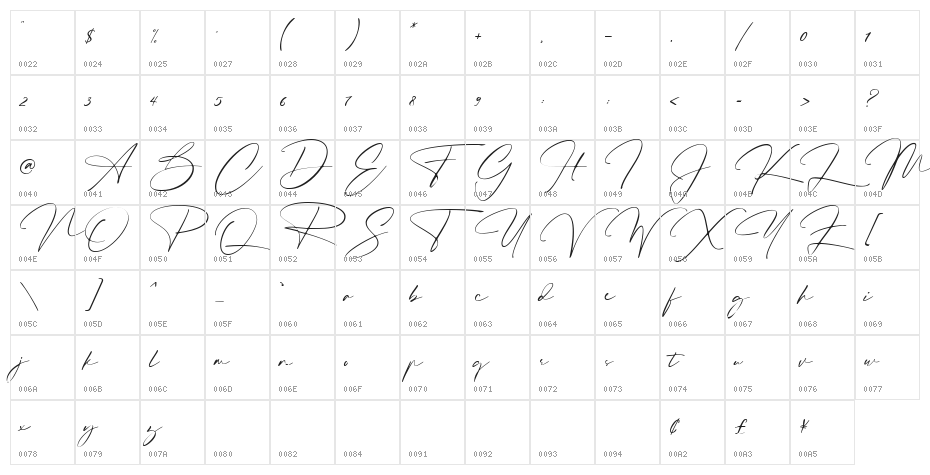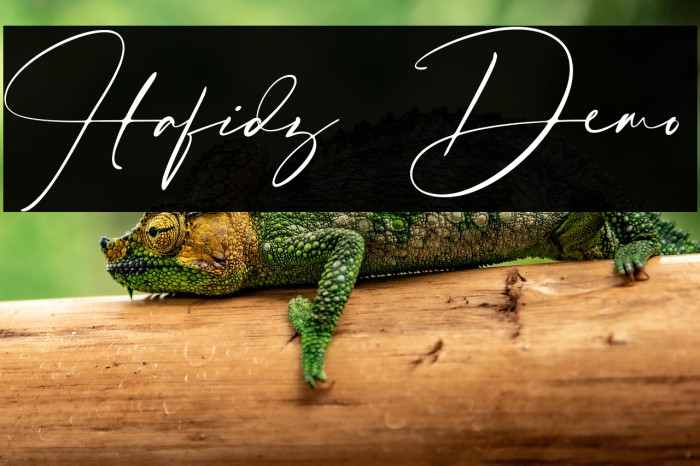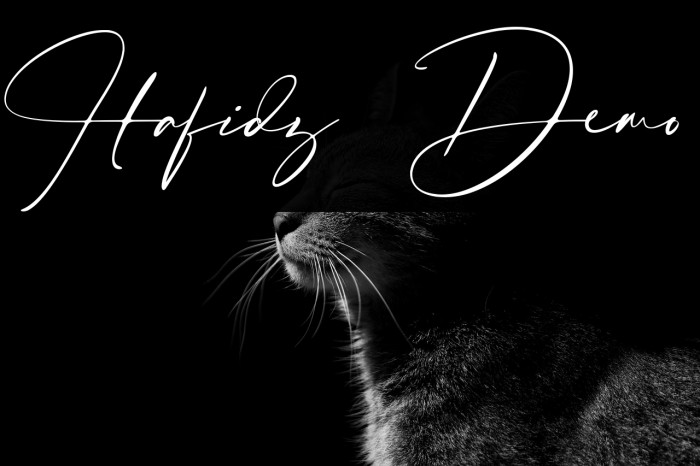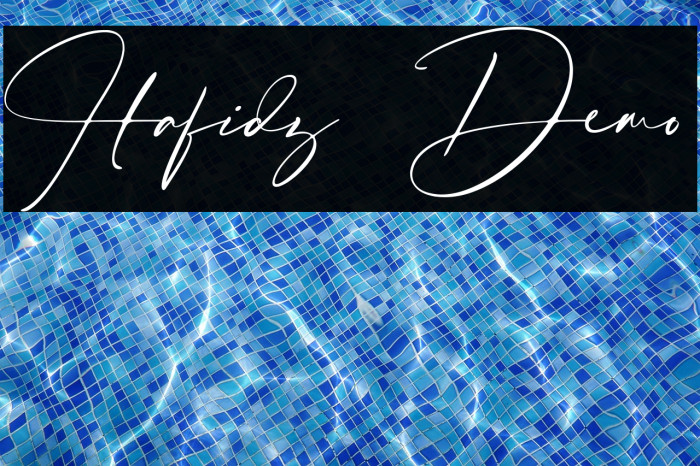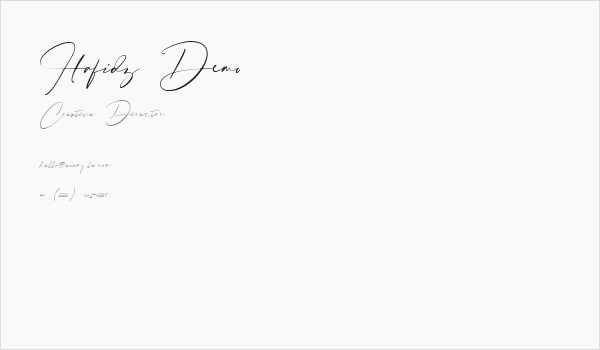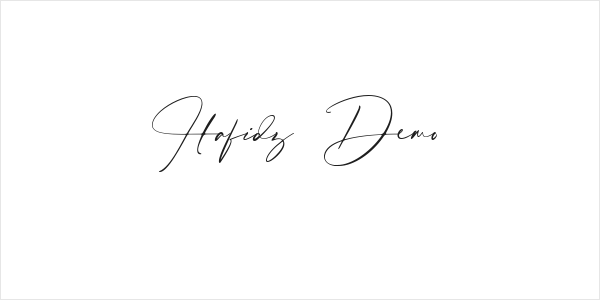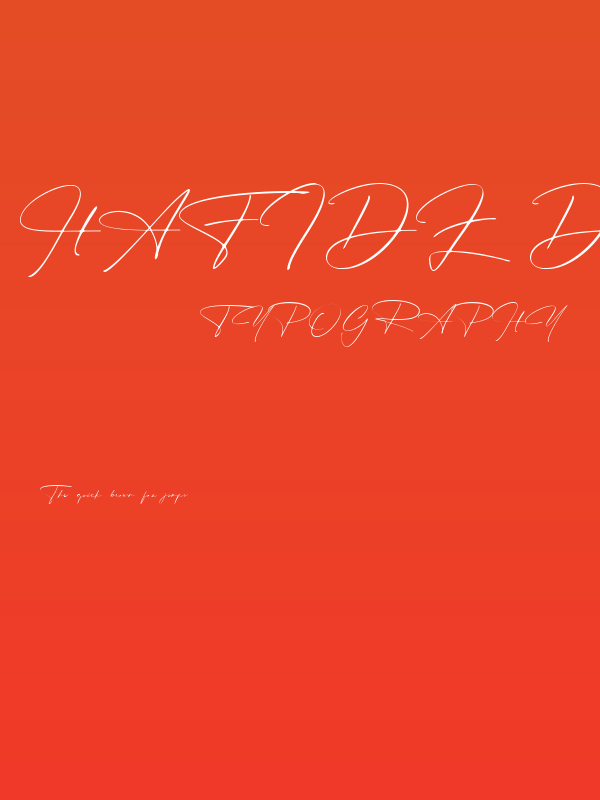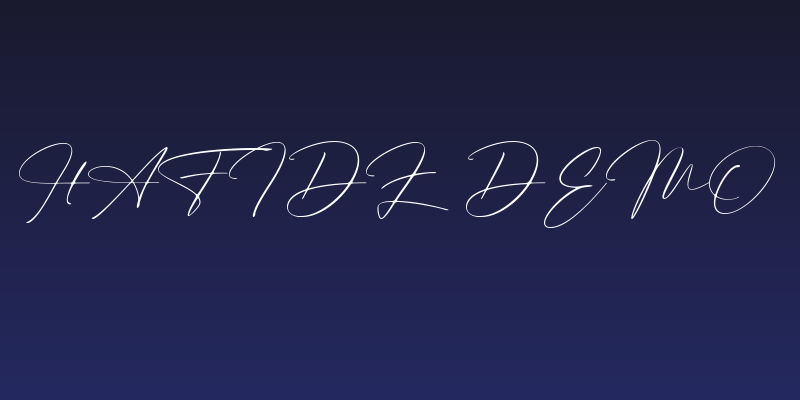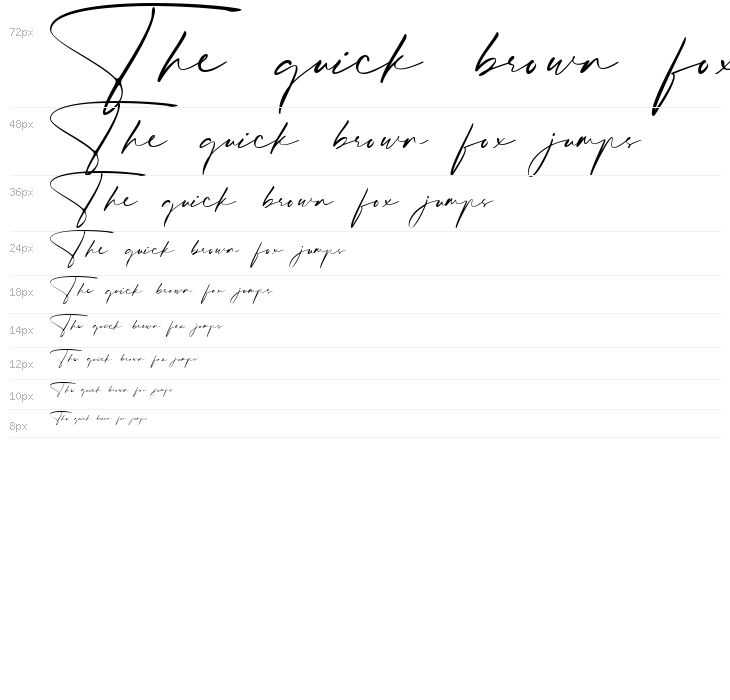
Hafidz Demo Font
Hafidz Demo Description
This font exudes elegance and sophistication with its flowing, cursive script style. The characters are intricately designed with smooth, continuous strokes that create a sense of fluidity and grace. The uppercase letters are particularly ornate, featuring elaborate loops and flourishes, while the lowercase letters maintain a more restrained yet equally stylish appearance. The numerals and special characters complement the overall aesthetic, ensuring a cohesive look. This font is perfect for projects that require a touch of class and refinement.
| Overall Style | Elegant, Sophisticated |
| Proposed Projects | Ideal for wedding invitations, luxury branding, elegant stationery, and high-end product packaging. |